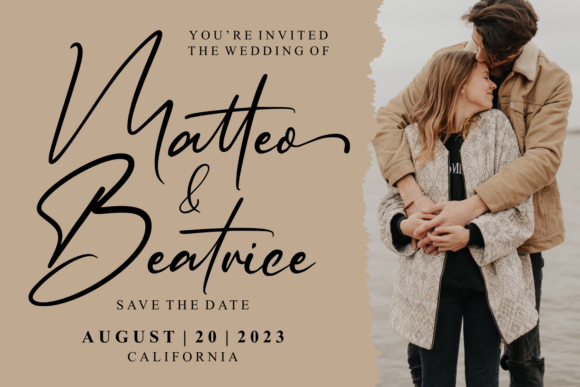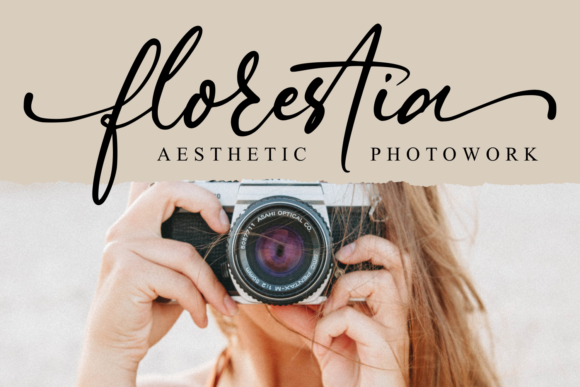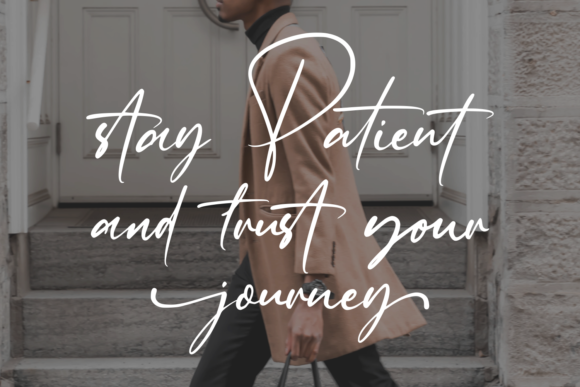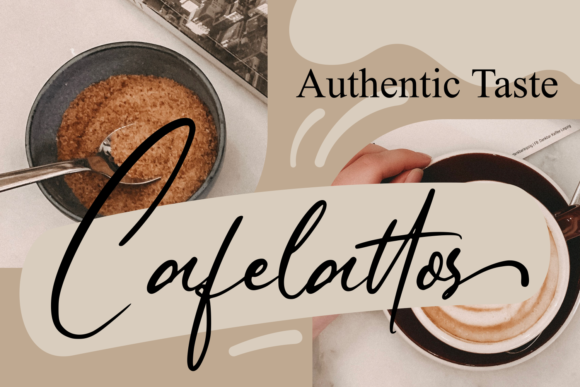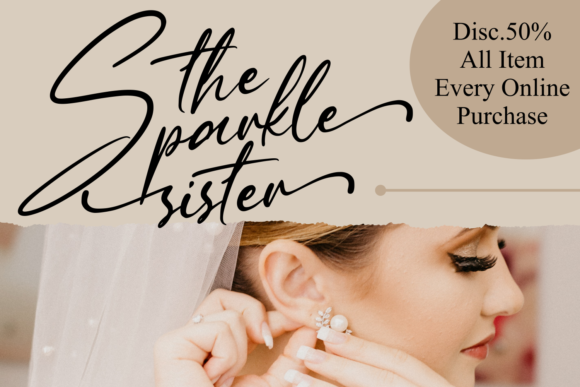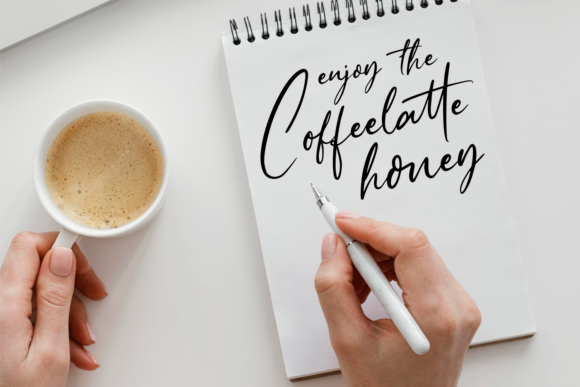
Unlock the Beauty of Handwritten Romance with Berlione Signature Font
Imagine you’re planning a romantic getaway to the French countryside, surrounded by rolling hills and vineyards. You’re searching for the perfect invitation to make the moment even more unforgettable. As you browse through design inspiration, one font catches your eye – its elegant, cursive script whispers of love and sophistication. This is where the Berlione Signature Font comes in, a ravishing and beautiful handwritten font that will elevate your designs to new heights.
This stunning font is designed to add a touch of romance and whimsy to your projects, making it perfect for wedding invitations, love letters, and any other design that requires a sense of elegance and refinement. With its well-balanced characters and PUA encoding, you’ll have access to all the glyphs and swashes you need to create truly unique and breathtaking designs.
Berlione Signature Font Key Features
- Font Type: Script Font, ideal for creating elegant and sophisticated signatures
- Unique Characteristics: Distinctive flair and flourish strokes, making it perfect for creating custom signatures, logos, and other decorative typography
Designer Review: Berlione Signature Font
I recently had the chance to work with the Berlione Signature Font, and I must say it’s a unique and captivating addition to any design project. ✨ The font’s distinctive curves and elegant lines make it perfect for creating a sense of luxury and sophistication.
Here are some of the things that work well with this font:
- ✨ Elegant and refined aesthetic
- ✨ Wide range of applications, from branding to print materials
- ✨ Excellent for creating a sense of professionalism and trust
- ⚠️ Limited character set, which may not be suitable for projects requiring extensive typing
- ⚠️ May not be suitable for digital applications, as it can appear distorted at smaller font sizes
Overall, I’m impressed with the Berlione Signature Font’s unique character and versatility. While it may have some limitations, it’s an excellent choice for designers looking to add a touch of elegance to their projects.
Getting the Most Out of the Berlione Signature Font
For optimal results, use the Berlione Signature Font in conjunction with a high-contrast background to maximize its visual impact.
Experiment with different font sizes and colors to create a unique and personalized design.
The Berlione Signature Font is ideal for:
Personal branding and logos
Business cards and stationery
Wedding invitations and event materials
Any project requiring a sophisticated and elegant font
Alternatives to Berlione Signature Font for Designers
The Great Vibes Font is a beautiful, elegant script font that works well for wedding invitations, greeting cards, and other formal events. It features a flowing, cursive design that adds a touch of sophistication to any project. Great Vibes Font is a good alternative to Berlione Signature Font as it offers a similar elegant feel, but with a more refined and precise design.
The Alex Brush Font is a stylish, handwritten font that is perfect for creative projects, such as fashion branding, food packaging, and advertising. It features a unique, brush-like design that adds a personal touch to any project. Alex Brush Font is similar to Berlione Signature Font in its elegant and refined feel, but it has a more modern and edgy design.